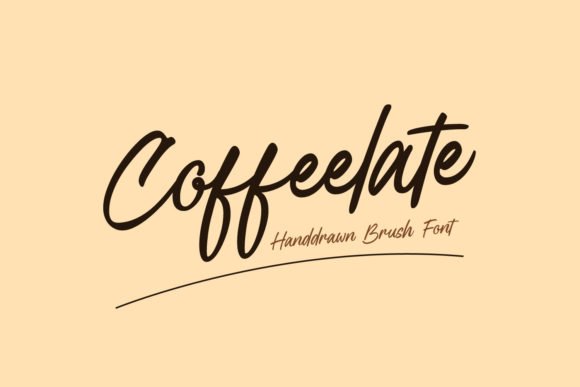
Introduction to Coffeelate Font
Coffeelate is a beautiful light handwritten font with a unique feel and a stunning impact.
It will add a luxury spark to any design project that you wish to create .
Coffeelate Font offers exceptional quality and versatility, making it a valuable addition to your design toolkit. Whether you’re creating for personal projects or commercial use, Coffeelate Font delivers professional results.